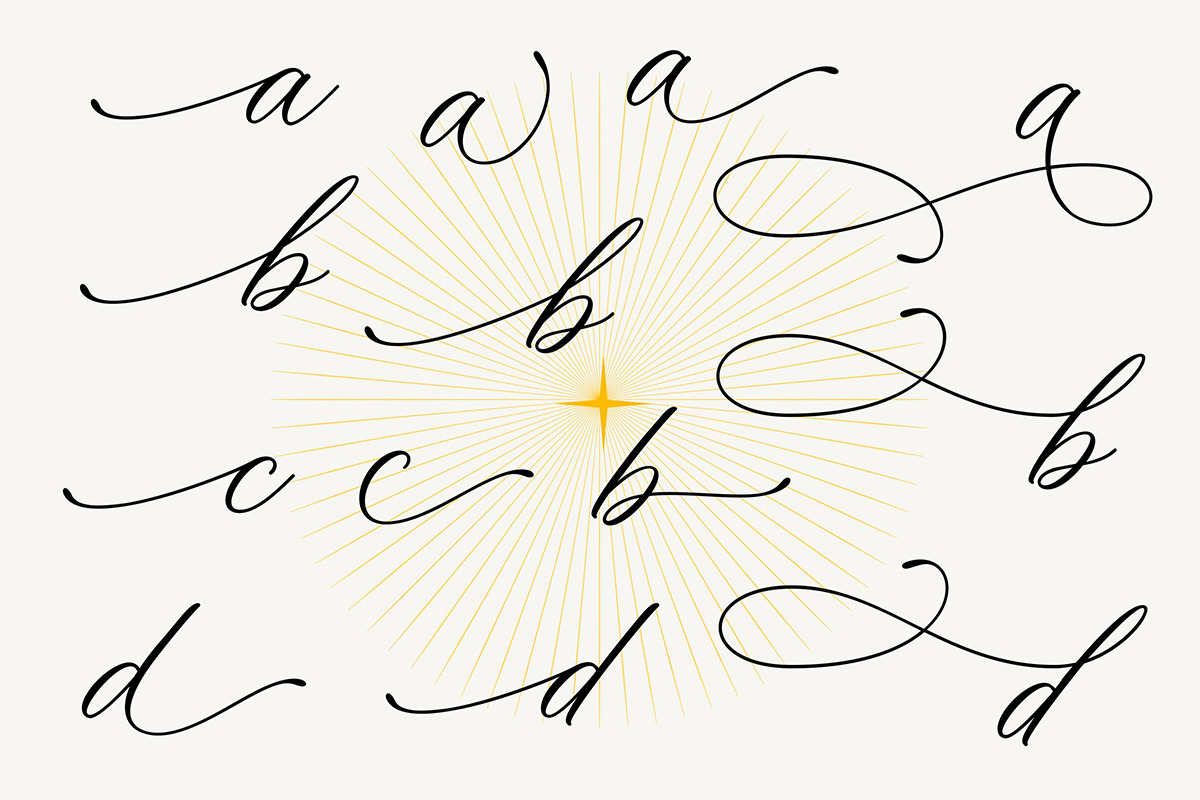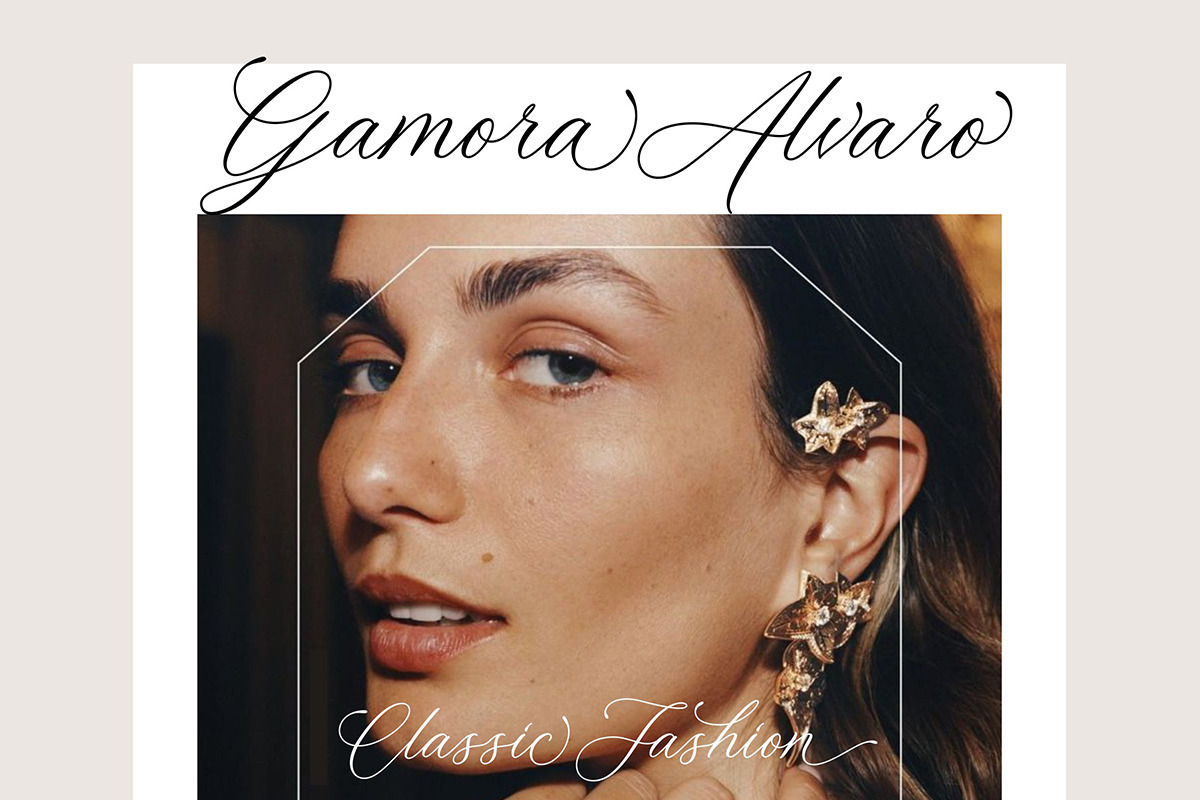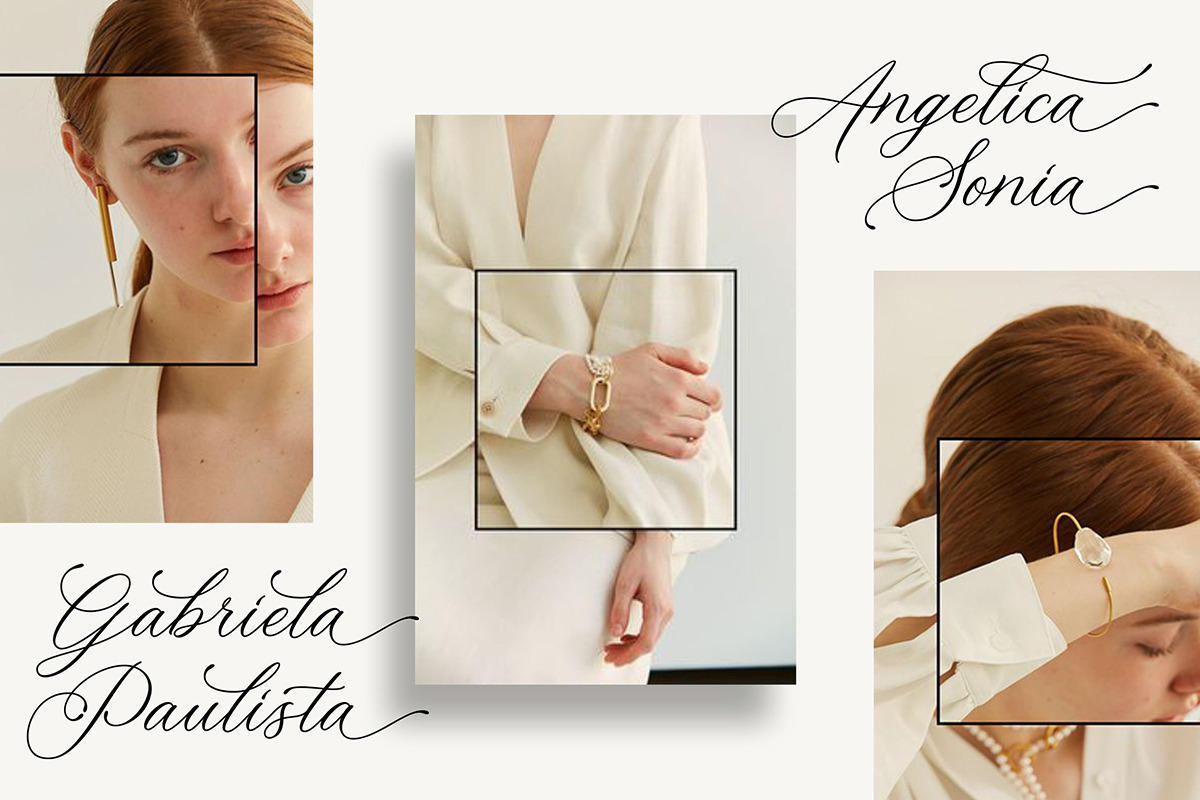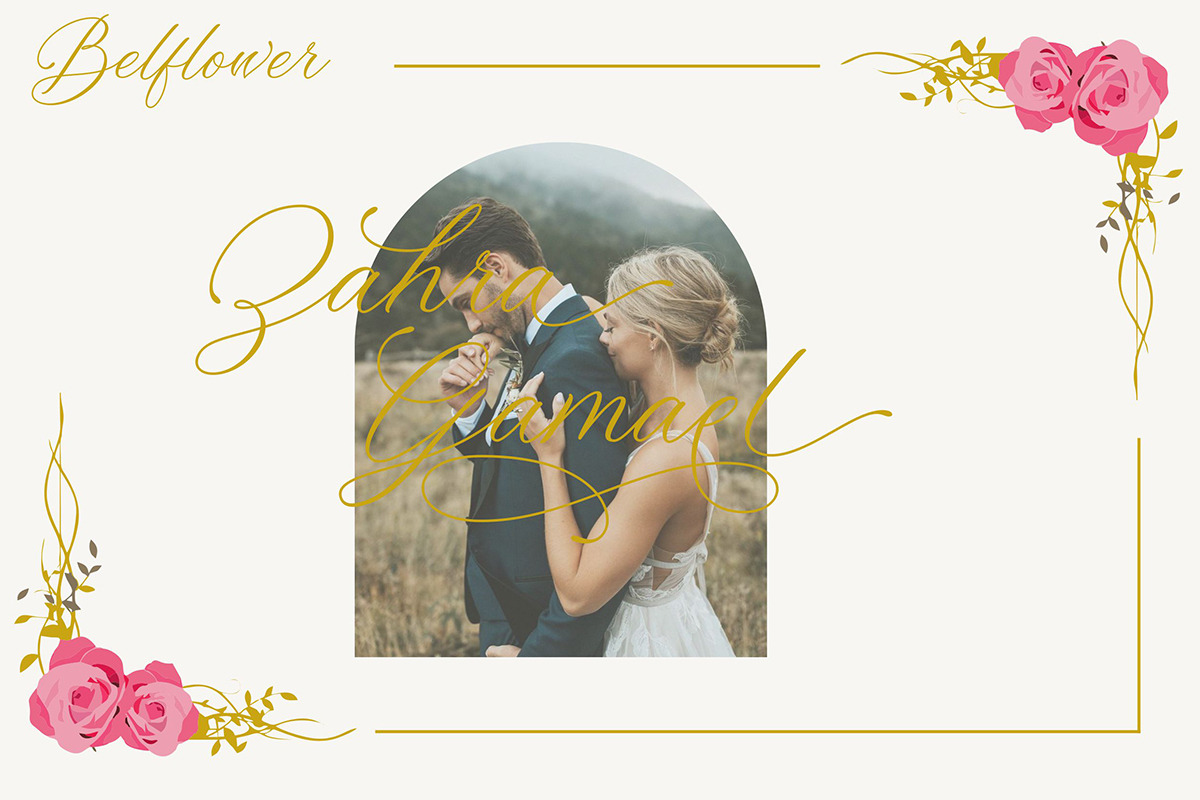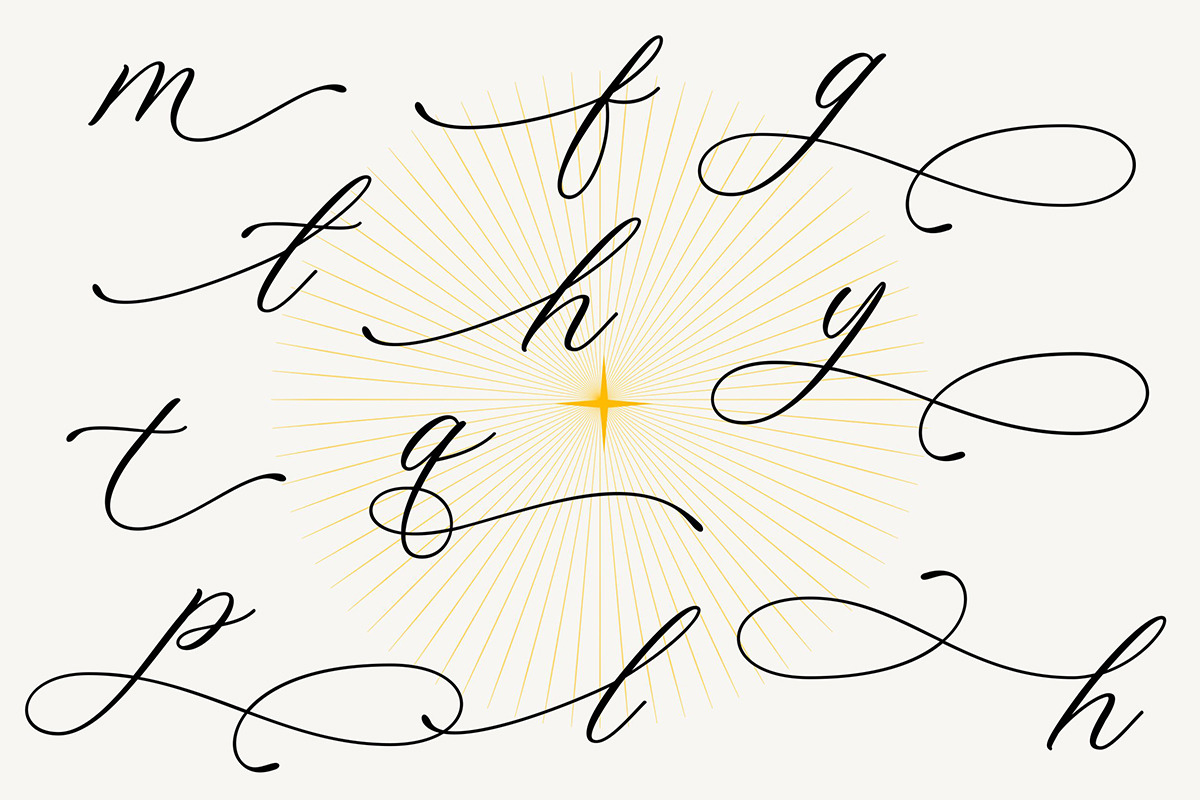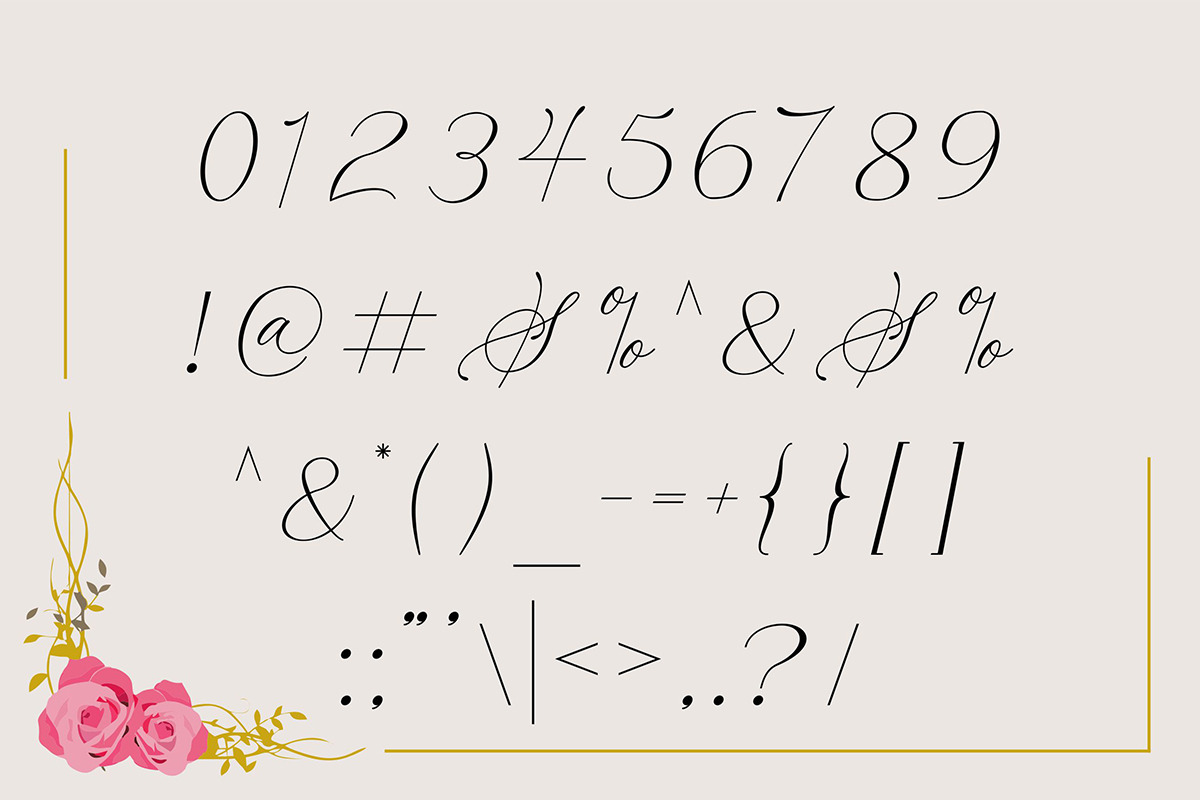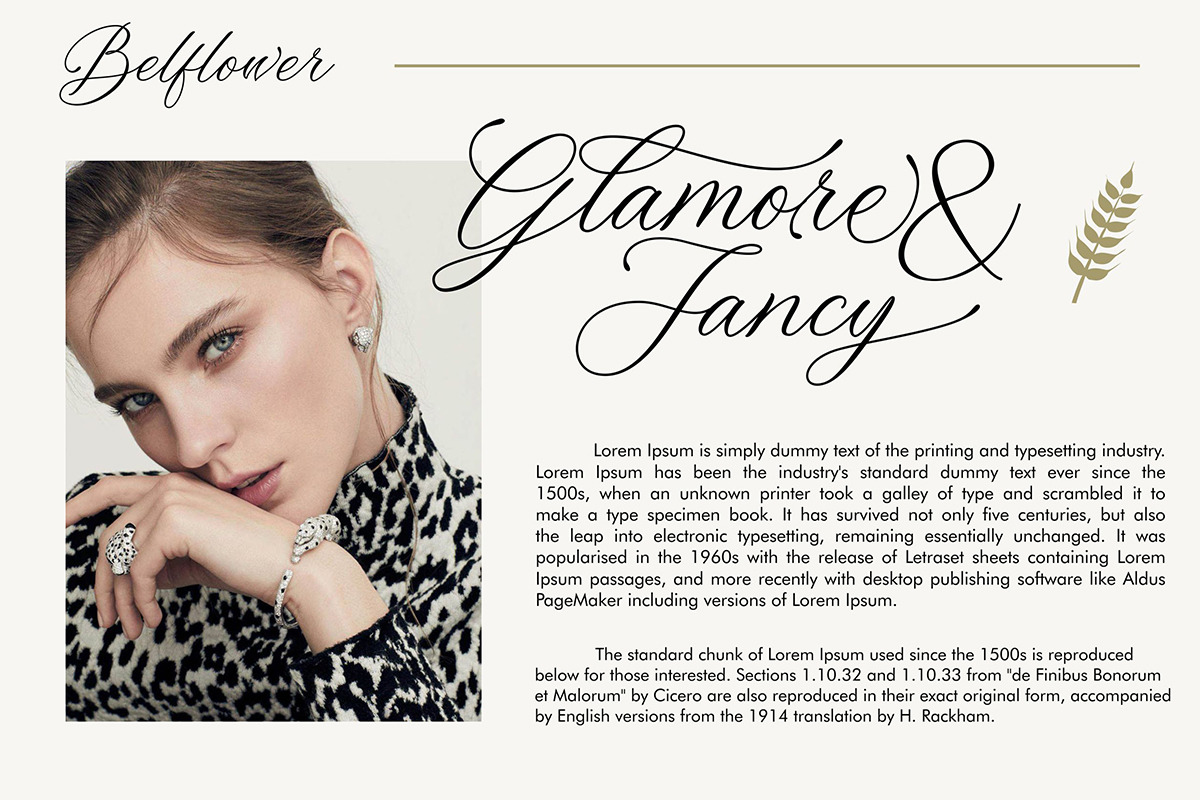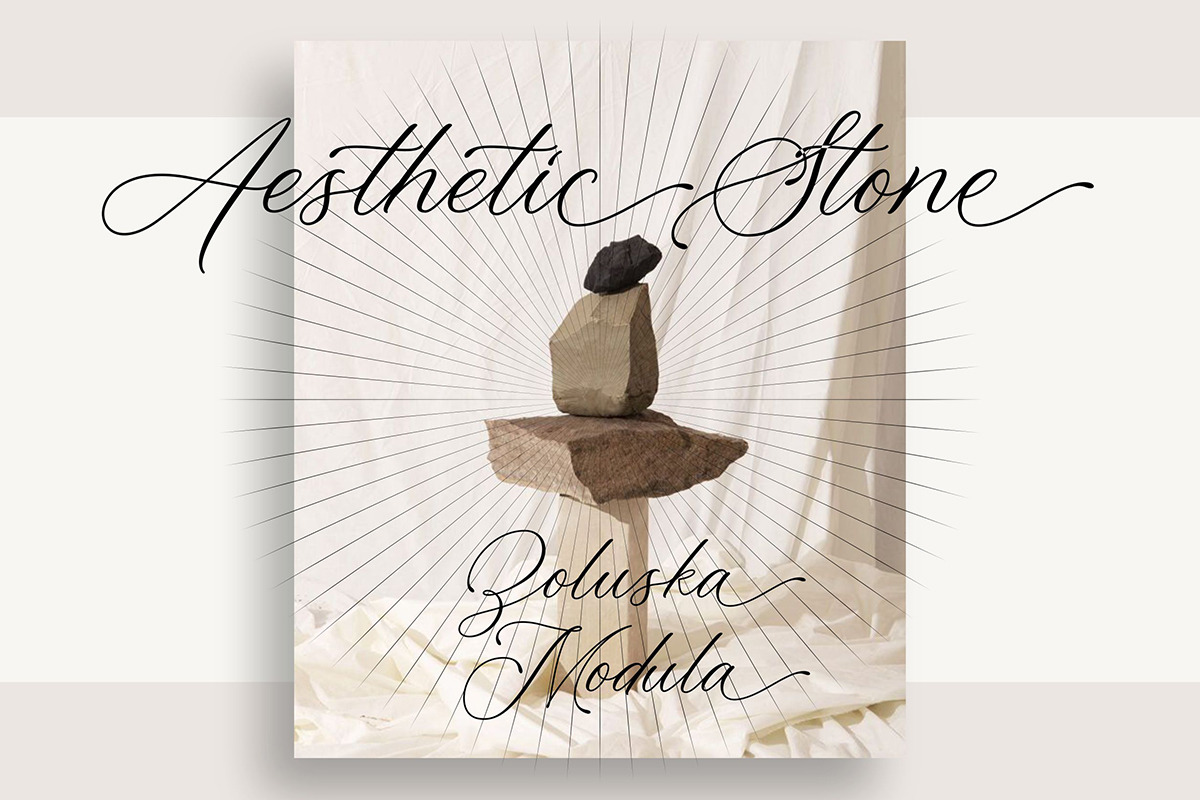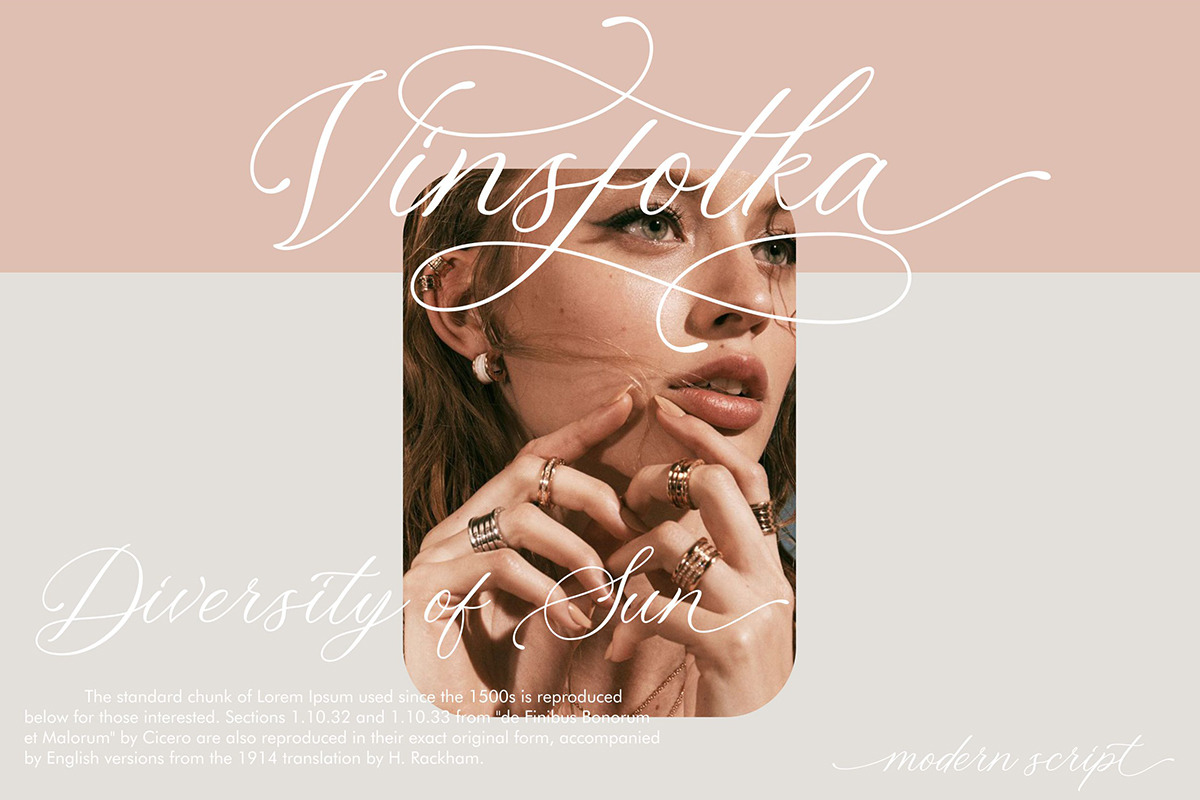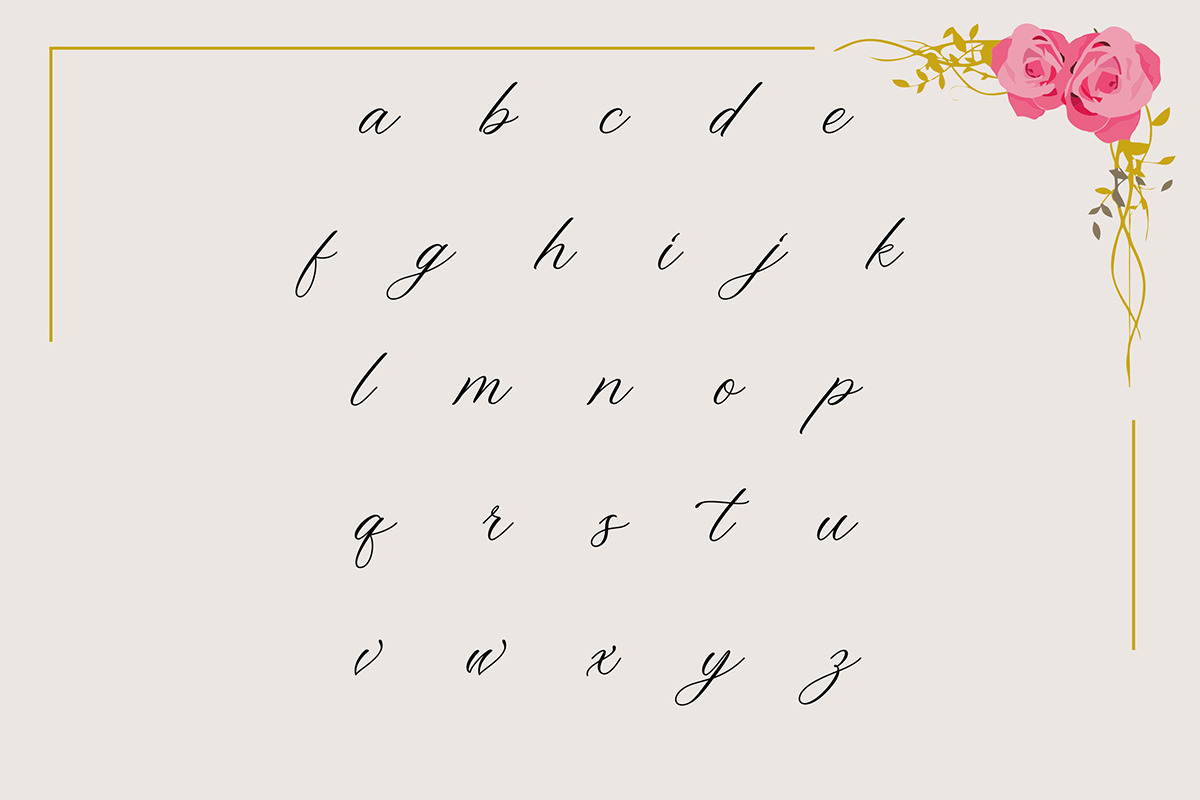
Belflower Script | Modern Signature
Introducing of our new product the name Belflower Script | Modern Signature. Belflower Script Fonts includes uppercase and lowercase letters, numerals, a large range of punctuation and ligatures. All lowercase letters include ending swashes.